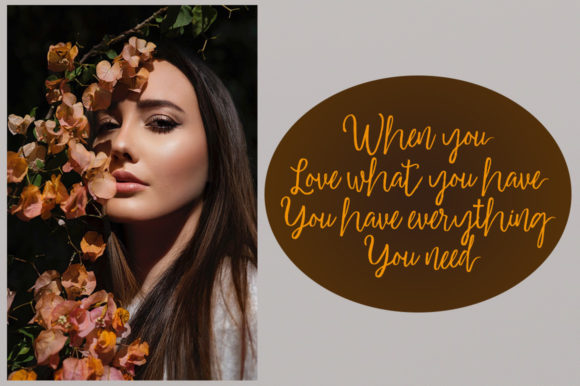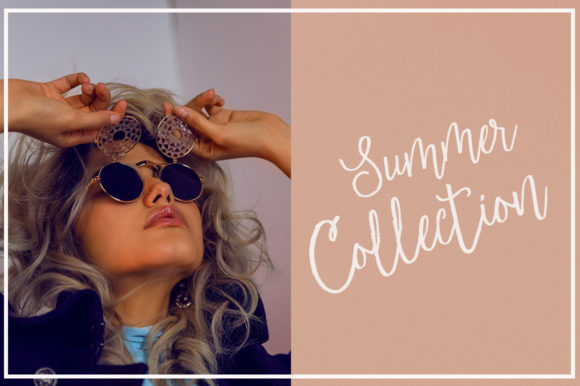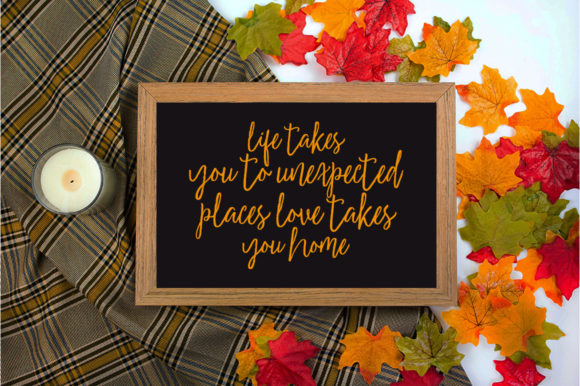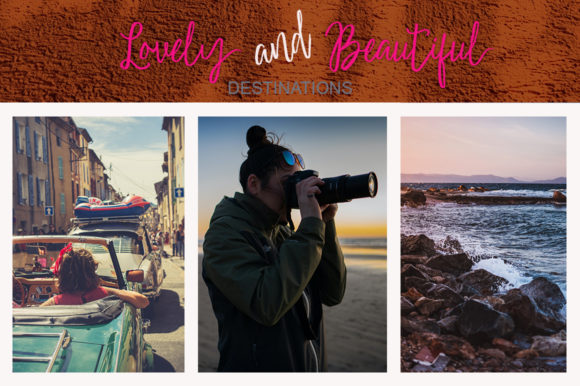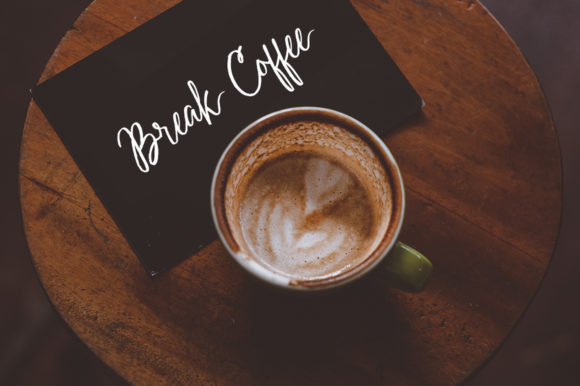
Introduction to Misyela Font
There’s something magical about the moment when a design project comes together – the perfect balance of colors, the elegant arrangement of typography, and the subtle details that elevate the entire piece. For many designers, this moment is what drives their passion and inspires them to create something truly remarkable. And for those seeking to capture that same magic, the Misyela Font is an invaluable resource.
This charming handwritten font is more than just a pretty face – it’s a versatile design tool that can add a touch of elegance to any project. With its PUA encoding, accessing the font’s extensive glyph and swash collection is a breeze, making it a high-quality resource for designers looking to take their work to the next level.
Whether you’re working on a creative project that requires a unique touch or simply want to add some personality to your designs, the Misyela Font is a valuable asset that’s sure to impress.
Key Features of Misyela Font
- High-quality font with a unique, modern design perfect for creative projects.
- Features a transparent background, making it ideal for use on various backgrounds.
- Comes in a single weight, suitable for a wide range of design applications.
- Designed to be scalable, ensuring crisp and clear readability at various resolutions.
- Perfect for designers and artists working on creative projects, such as logos, typography, and graphics.
Honest Review: Misyela Font
One of the standout features of the Misyela Font is its transparent background, which makes it perfect for overlaying text on images or using it in creative projects where a subtle look is desired.
Here are some things that work well with the Misyela Font:
- ✨ Elegant and sophisticated feel, making it perfect for high-end designs
- ✨ Highly customizable, allowing for easy adjustments to font size, color, and style
However, there are a few limitations to be aware of:
- ⚠️ Limited character set, which may not be suitable for longer texts or documents
- ⚠️ May not be as readable on smaller screens or in certain font sizes
Overall, I’m very impressed with the Misyela Font. Its unique style and high quality make it a valuable addition to any design resource library. While it may have some limitations, it’s a great choice for creative projects where a touch of elegance is needed.
Misyela Font
Tips for Getting the Most Out of Misyela Font
Use the Misyela Font with a transparent background to create a striking visual effect. Experiment with different font sizes and colors to add depth and interest to your design.
The Misyela Font is ideal for creative projects, such as logo designs, infographics, and social media graphics. Its high-quality design and transparent background make it a versatile design resource for any project.
Can I use the Misyela Font with a transparent background?
Yes, the Misyela Font is designed to be used with a transparent background, making it ideal for use in creative projects that require a clean and modern design aesthetic.